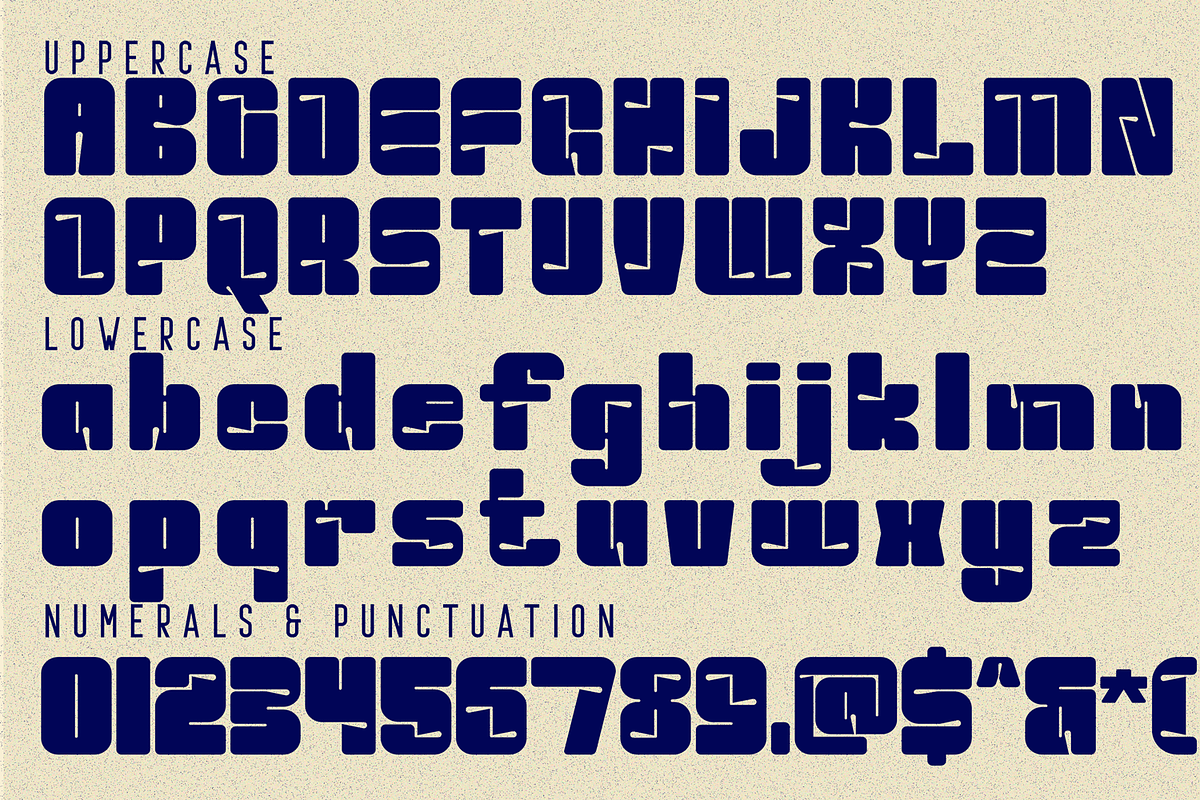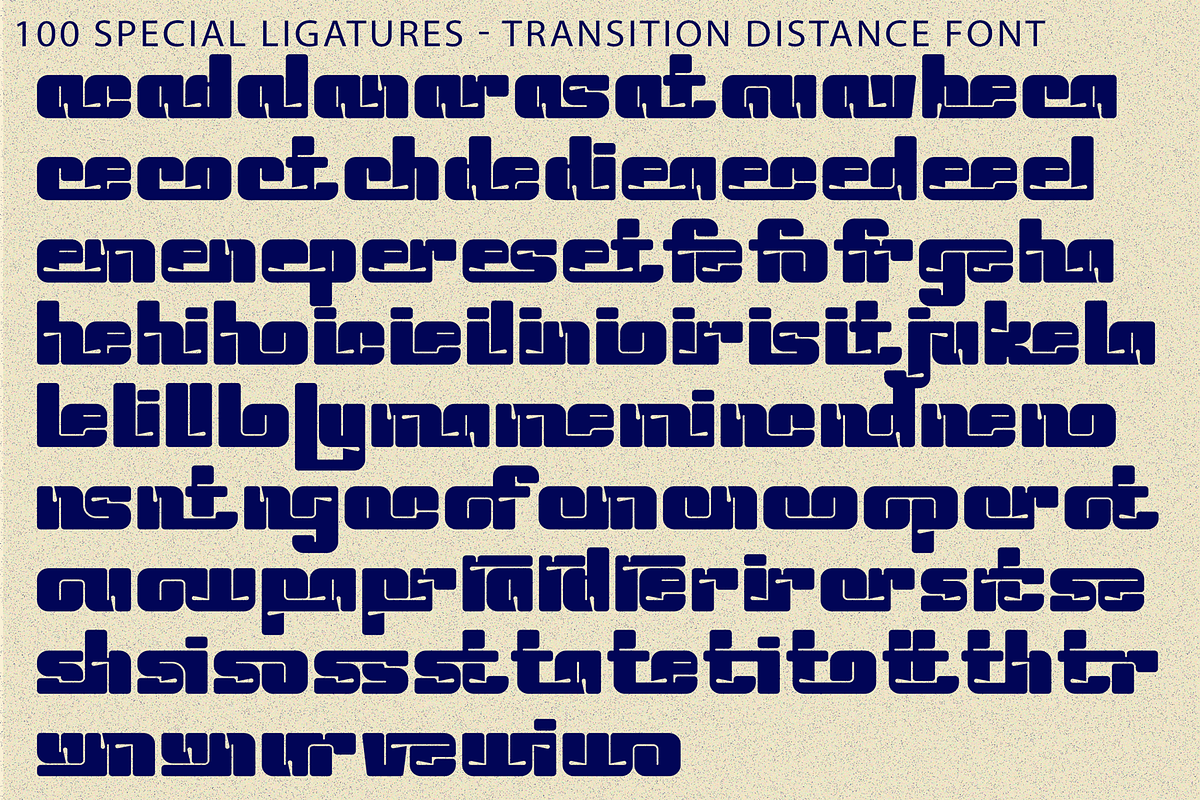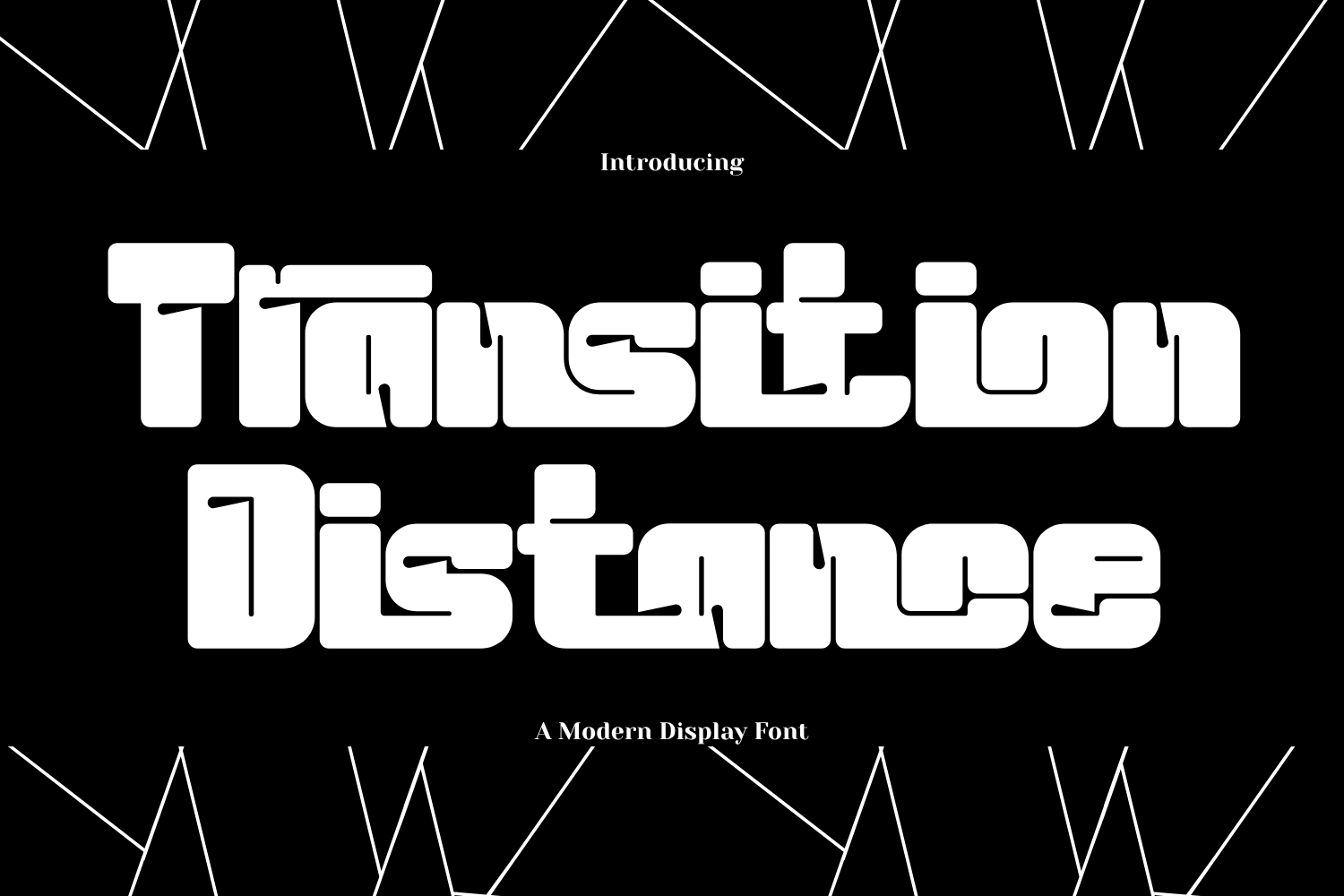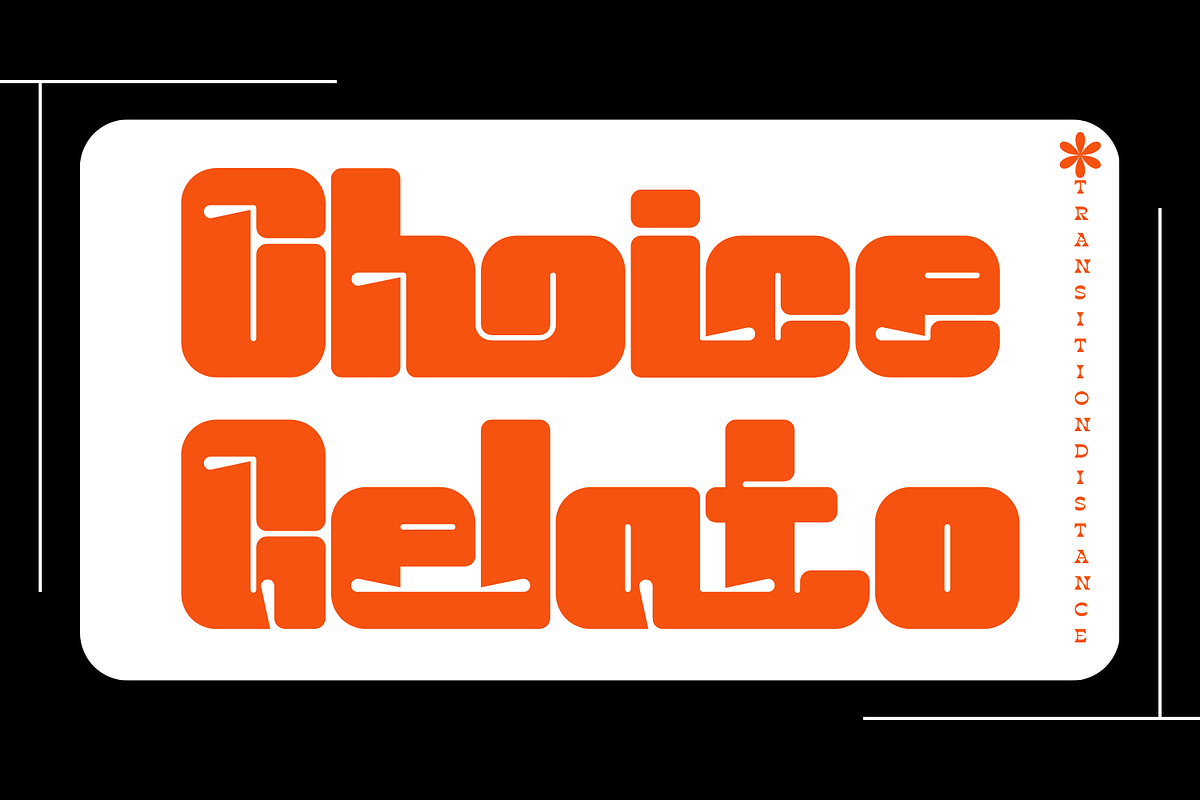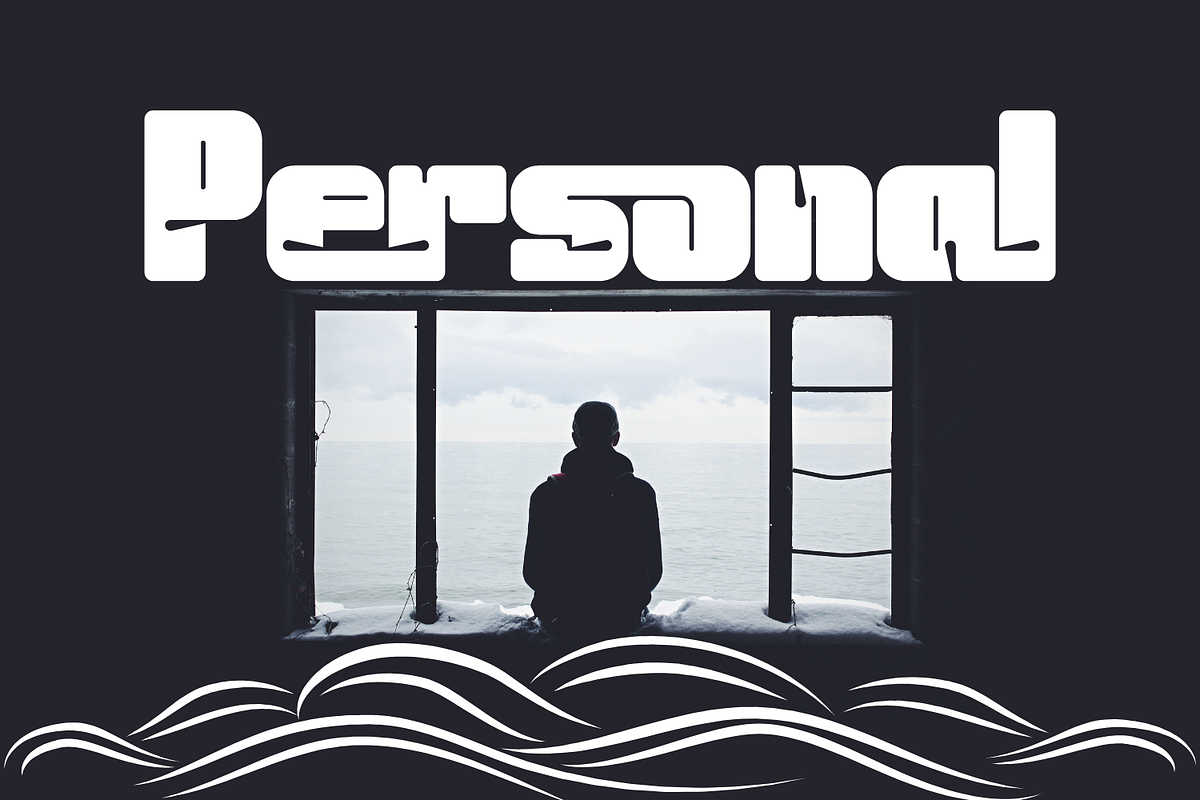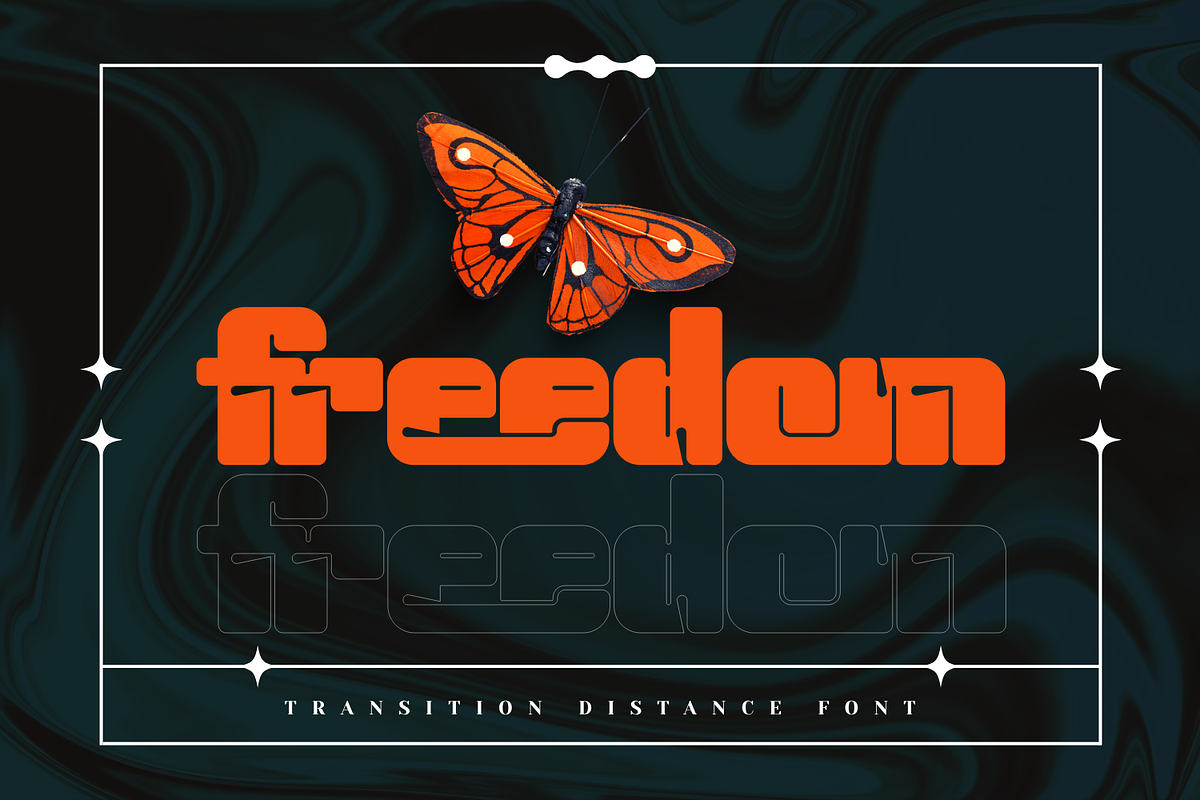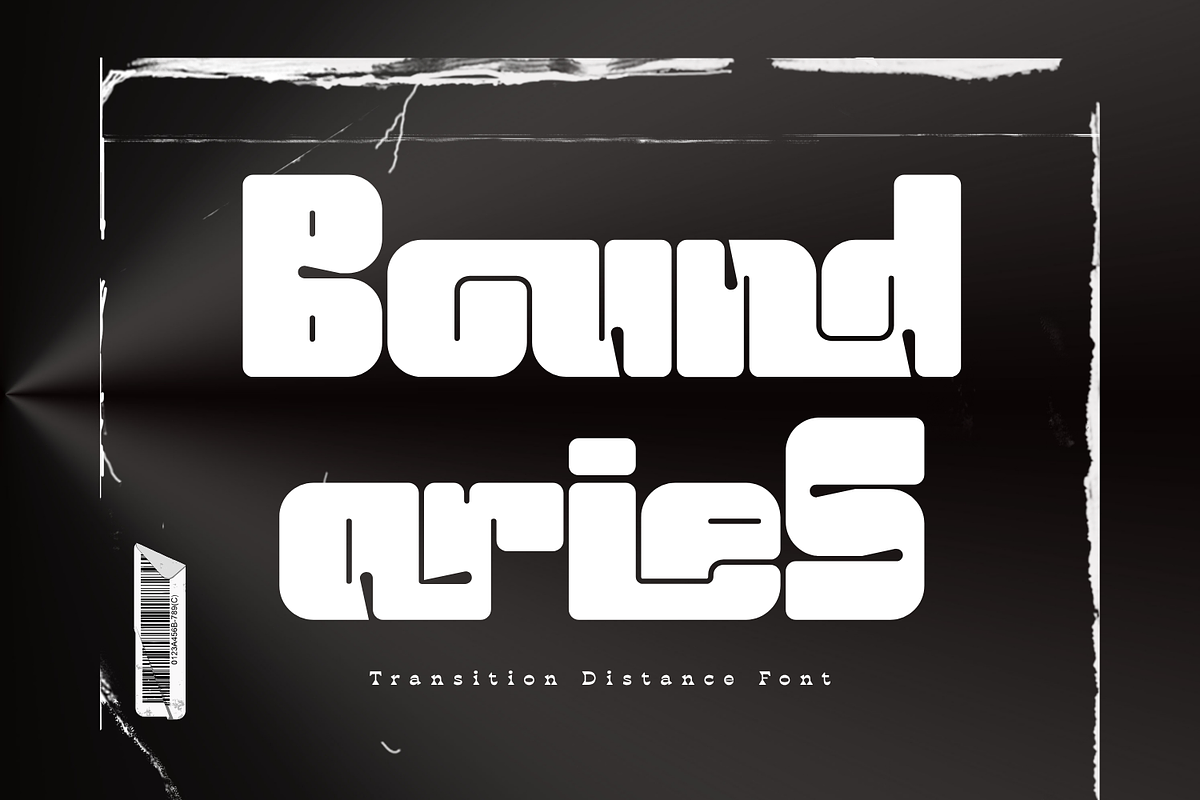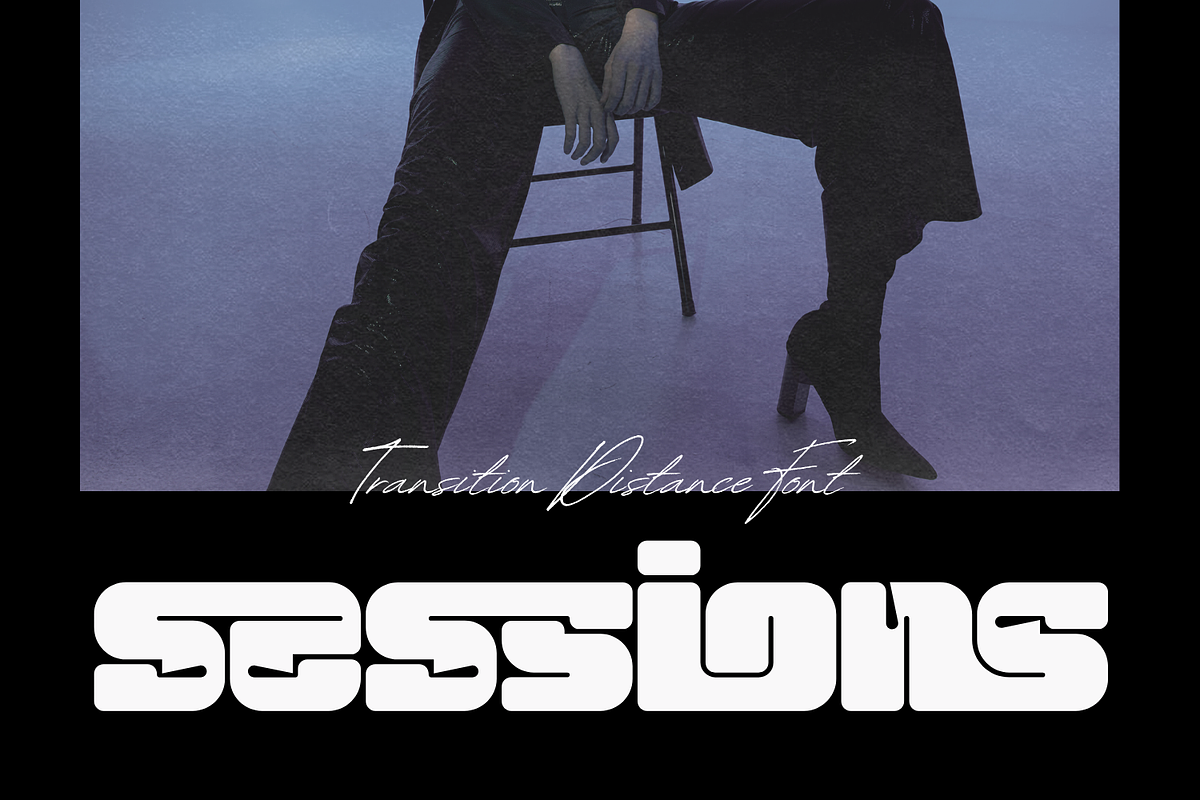
Transition Distance - Structure Font
Transition Distance - Structure Font is a bold distorted sans-serif display font that combines strong geometric structure with subtle glitch-inspired details. Featuring thick, rounded letterforms and compact spacing, this typeface delivers a powerful and modern visual presence. Designed with slight distortions and dynamic cuts, Transition Distance adds a unique edge without sacrificing readability. Its clean yet unconventional style makes it perfect for headlines, branding, posters, and contemporary design projects.
- Around 100 Special Ligatures & Alternates
🔤About 100 ligatures combined with Stylistic Alternates Font:
ac ad al an ar as at au av be ca ce ch co ct de di ea ec ed ee el em en ep er es et fe fo fr ge ha he hi ho ie ic il in io ir is it ju ke la le li ll lo ly ma me mi nc nd ne ng no nt ns oc of om on oo op or ot ou ow pa pr ra rd re ri ro rs rt se sh si so ss st ta te th ti to tr tt um un ur ve wi wo